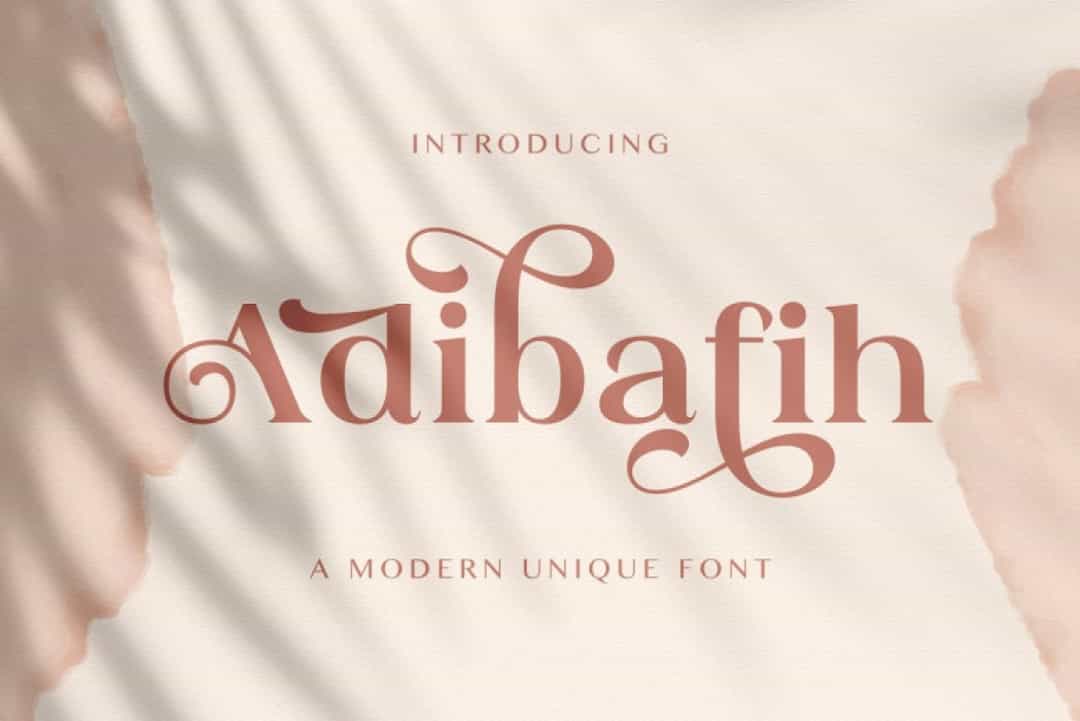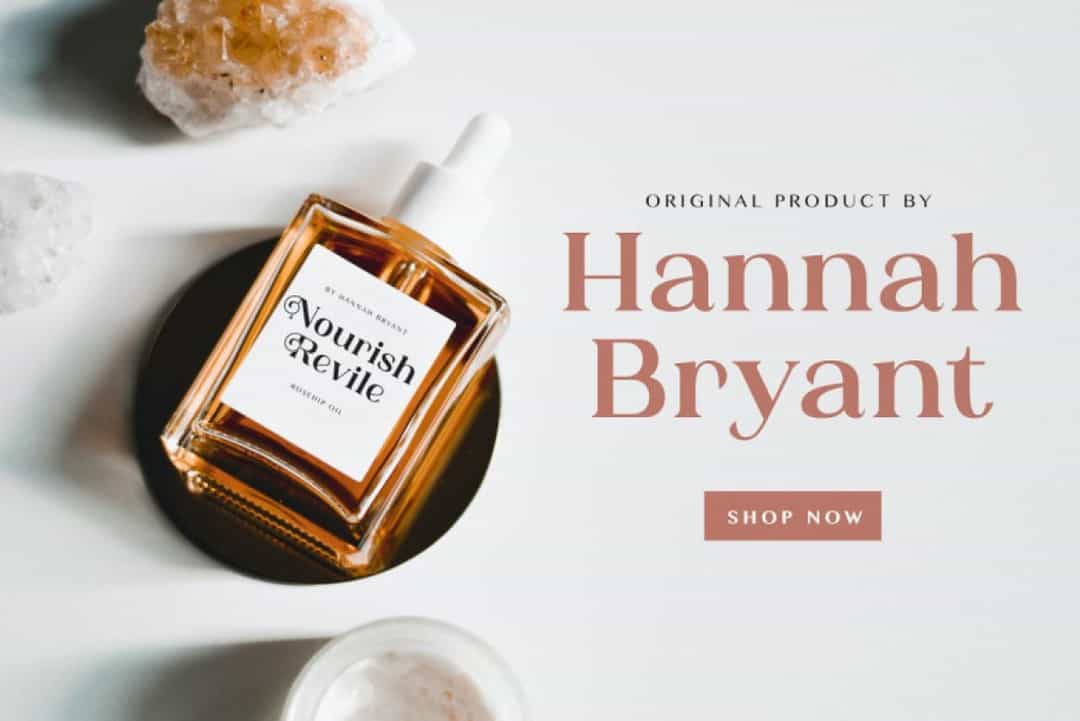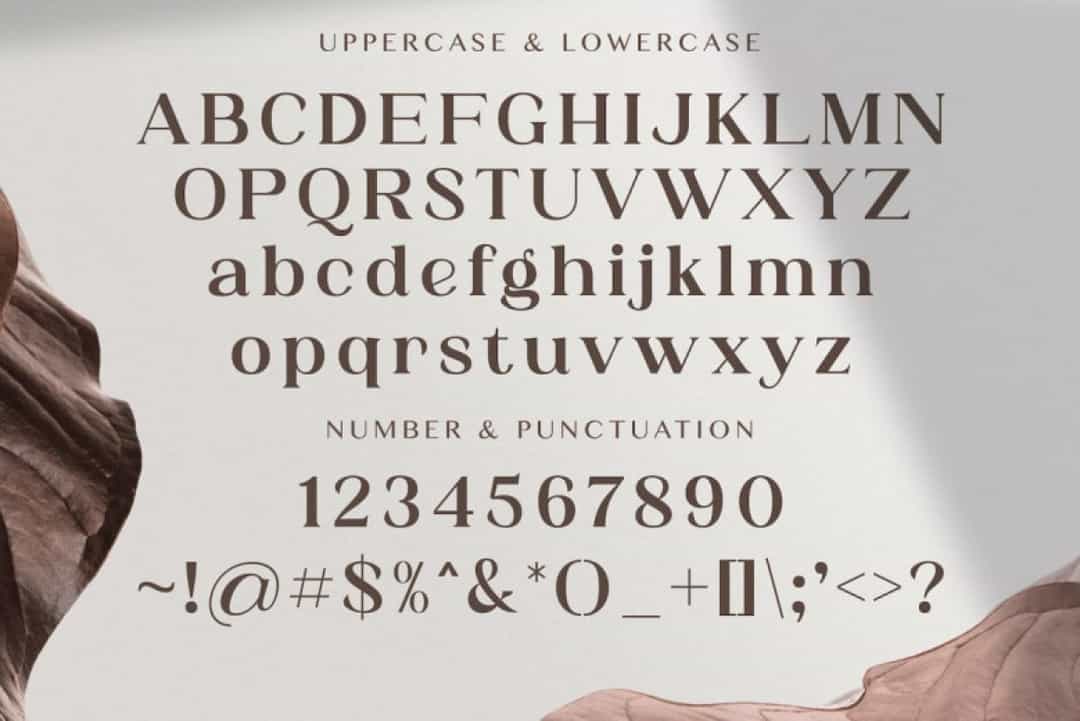
Adibafih is an authentic and fun serif typeface that’s versatile enough to match with many designs – you’re sure to see its distinctive impact when added into your ideas for creativity! Watch how it stands out among its peers!